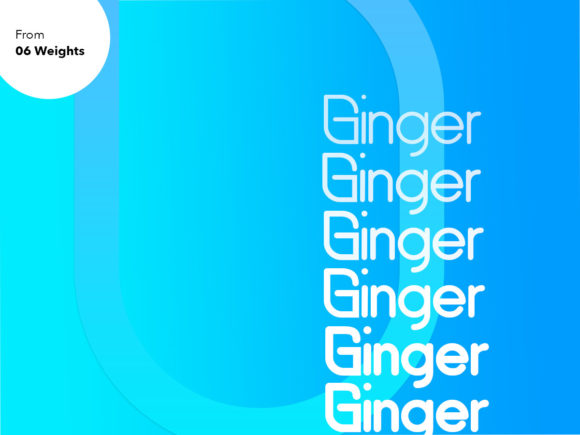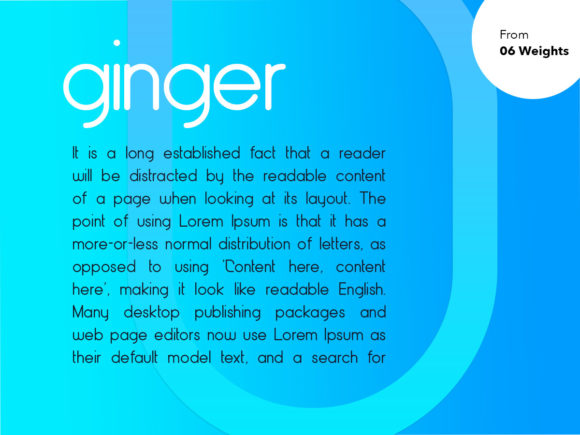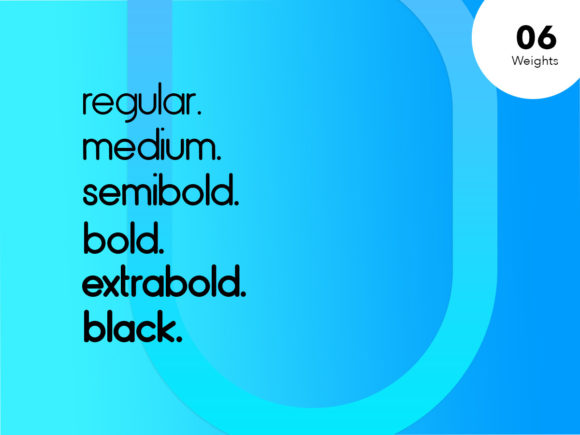
Ginger Font: Elevate Your Designs with a Minimal and Neat Sans Serif Font
In the world of typography, fonts play a crucial role in making or breaking a design. A well-chosen font can elevate your creative project and make it stand out from the crowd. If you’re a designer or crafter looking for a versatile and stylish font to add to your toolkit, look no further than Ginger Font. In this article, we’ll explore the features and benefits of Ginger Font, and how it can be used to take your designs to the next level.
What is Ginger Font?
Ginger Font is a minimal and neat sans serif font that is perfect for a wide range of creative projects. Its clean and simple design makes it highly versatile, allowing it to be paired with a variety of design styles and themes. Whether you’re working on a logo, brochure, website, or craft project, Ginger Font is sure to make a great impression.
Key Features of Ginger Font
- Minimal and Neat Design: Ginger Font features a clean and simple sans serif design that is easy to read and looks great in a variety of contexts.
- Highly Versatile: Ginger Font can be used for a wide range of creative projects, from logos and brochures to websites and craft projects.
- Easily Readable: The font is optimized for readability, making it perfect for body text, headings, and titles.
- Scalable: Ginger Font is designed to look great at any size, from small captions to large headings.
Benefits of Using Ginger Font
So why choose Ginger Font for your next design project? Here are just a few benefits of using this versatile and stylish font:
- Adds a Professional Touch: Ginger Font’s clean and simple design gives your projects a professional and polished look.
- Enhances Readability: The font’s optimized readability makes it easy for your audience to quickly and easily understand your message.
- Versatile and Flexible: Ginger Font can be used for a wide range of design projects, making it a great addition to your font library.
- Unique and Creative: With its minimalist design, Ginger Font adds a touch of creativity and uniqueness to your projects.
How to Use Ginger Font in Your Designs
So how can you start using Ginger Font in your designs? Here are a few ideas to get you started:
- Pair it with Other Fonts: Ginger Font pairs well with a variety of other fonts, making it easy to create a unique and visually appealing typography scheme.
- Use it for Headings and Titles: The font’s bold and clean design makes it perfect for headings and titles.
- Add it to Your Website: Ginger Font is optimized for web use, making it a great choice for website design.
- Use it for Print Projects: The font is also suitable for print projects, such as brochures, flyers, and business cards.
In conclusion, Ginger Font is a versatile and stylish sans serif font that is perfect for designers and crafters looking to elevate their creative projects. With its clean and simple design, high readability, and scalability, Ginger Font is sure to make a great impression. Whether you’re working on a logo, website, or craft project, Ginger Font is a great addition to your toolkit. So why wait? Download Ginger Font today and start creating stunning designs that stand out from the crowd!